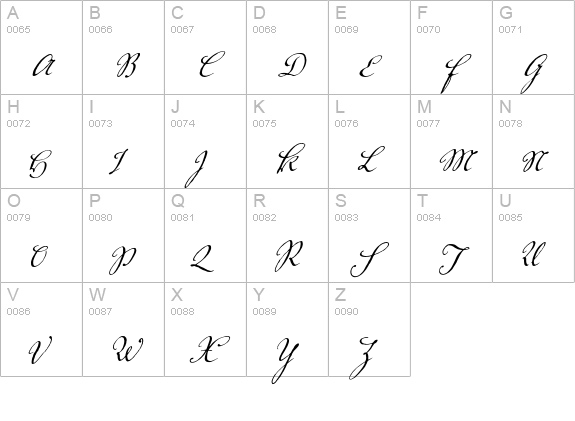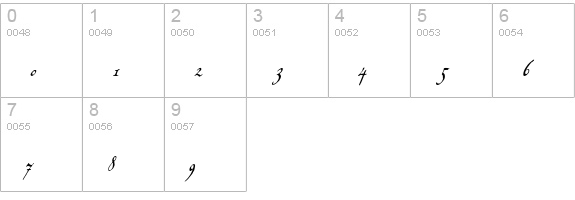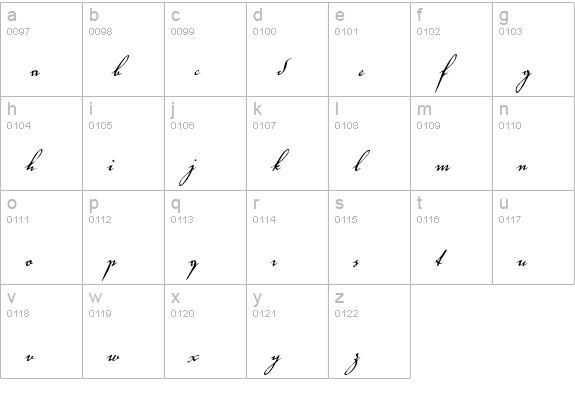
Voluta Script Pro is an exquisite and elegant font that exudes sophistication and charm. Its delicate and flowing script style captures the essence of graceful handwriting, making it perfect for creating stunning designs, invitations, logos, and more. With its carefully crafted curves and graceful strokes, Voluta Script Pro adds a touch of beauty to any project. Whether you're working on a wedding invitation or a branding project, this font will elevate your designs to new heights. One of the best things about Voluta Script Pro is that it is available for free. Yes, you read that right - this stunning font can be yours without spending a penny. Simply head over to FontsMarket.com and download it for free. Don't miss out on the opportunity to add this exceptional font to your collection. With Voluta Script Pro, you'll have a versatile and elegant tool at your fingertips, ready to elevate your designs and captivate your audience.